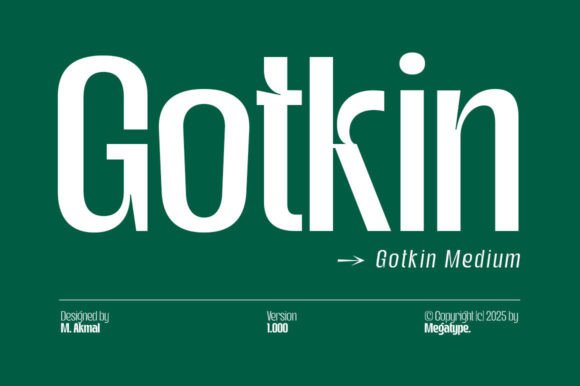
Gotkin Medium Font: A Modern Sans Serif for Sophisticated Designs
Gotkin Medium Font is a part of the Gotkin font family, a strong and sophisticated sans serif typeface designed to convey modern strength and dynamism. The Gotkin font family is crafted with soft curves and bold geometric shapes, adding warmth and boldness to make it ideal for corporate branding, digital interfaces, and editorial designs.
Design and Features
Gotkin is designed with a focus on versatility, offering a range of weights from light to black, making it suitable for various design applications. The font features beautiful italics, excellent weights, alternates, ligatures, and extensive language support. This extensive feature set makes Gotkin a valuable asset for professionals seeking a reliable and stylish typeface for their projects.
Clean Lines and Readability
One of the standout features of Gotkin is its clean lines, ensuring readability in all formats, from headlines to body text. This makes it an excellent choice for designers who need a font that can perform well across different applications. Whether you’re working on a branding project, editorial design, or digital interface, Gotkin’s clarity and style shine through.
Variable Font Version
Gotkin also comes with a Variable font version, allowing designers to explore and refine beautiful designs with ease. This feature enables designers to adjust the font’s weight, width, and other attributes on the fly, providing a high degree of flexibility and creative control.
Applications and Use Cases
Gotkin excels in display settings such as headlines, titles, branding projects, logo designs, packaging, magazine titles, advertisements, and short or long texts. Its modern and sophisticated design makes it an excellent choice for:
- Corporate branding: Gotkin’s bold and geometric shapes make it perfect for logos, business cards, and other corporate materials.
- Digital interfaces: The font’s clean lines and readability ensure a great user experience on websites, mobile apps, and other digital platforms.
- Editorial designs: Gotkin’s versatility and range of weights make it suitable for magazine titles, articles, and other editorial content.
Key Benefits
The Gotkin font family offers several key benefits, including:
- Versatility: With a range of weights and styles, Gotkin can be used across various design applications.
- Readability: The font’s clean lines and geometric shapes ensure excellent readability in all formats.
- Modern style: Gotkin’s sophisticated design makes it perfect for modern and dynamic designs.
- Extensive language support: The font supports a wide range of languages, making it a great choice for global brands and projects.
Gotkin Font Family
The Gotkin font family includes:
- Weights: Light, Regular, Medium, Bold, Black
- Italics: Beautifully crafted italics to add emphasis and style to your designs.
- Alternates: Alternative characters to provide creative flexibility.
- Ligatures: Elegant ligatures to enhance the font’s typographic features.
- Language support: Extensive language support for global projects.
Gotkin Medium Font, part of the Gotkin font family, is a powerful and sophisticated sans serif typeface designed for modern designs. Its versatility, readability, and range of features make it an excellent choice for professionals seeking a reliable and stylish font for their projects. With its clean lines, geometric shapes, and extensive language support, Gotkin excels in various applications, from corporate branding to editorial designs.